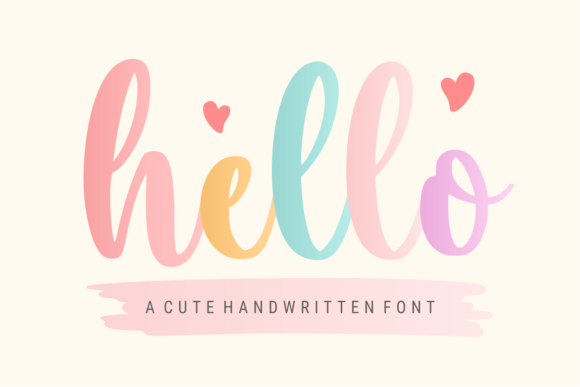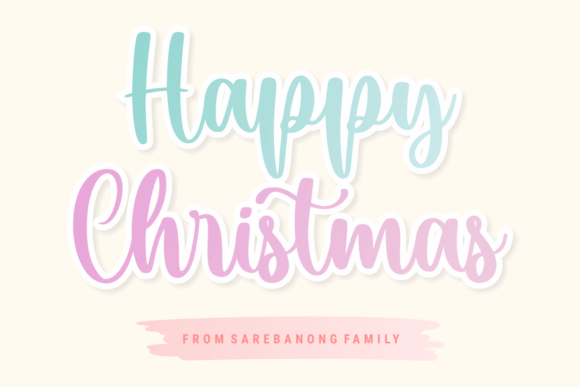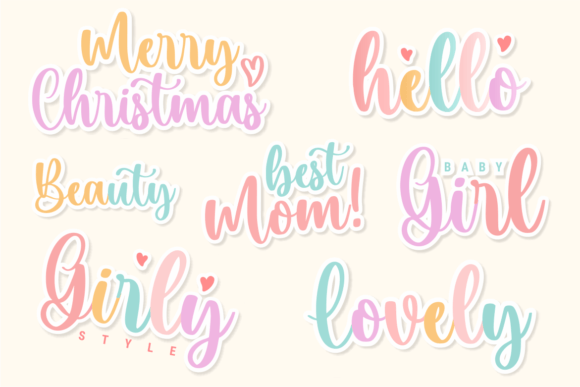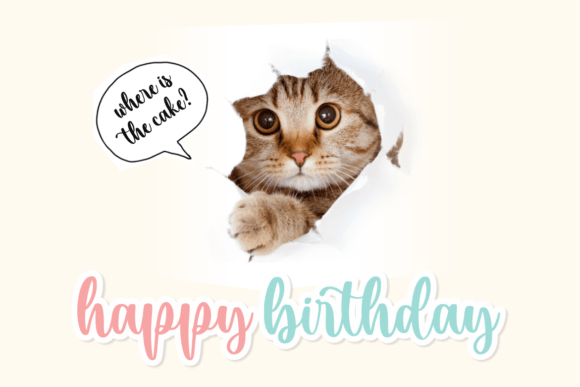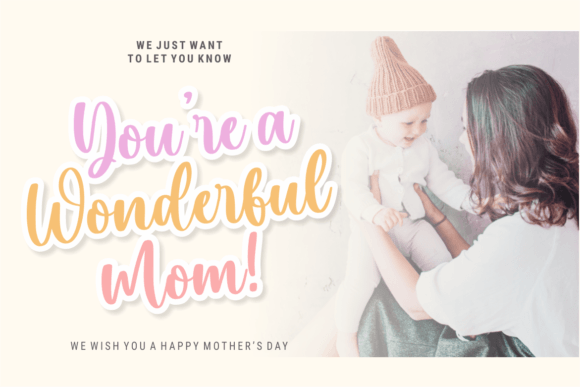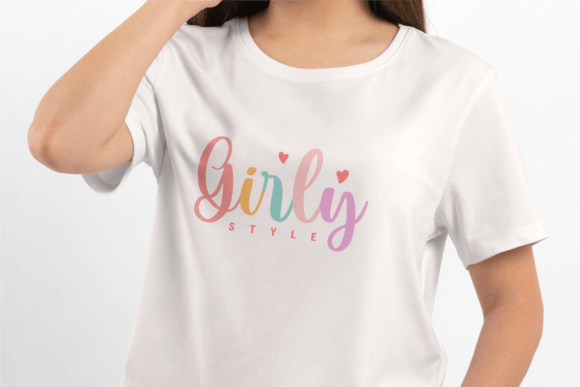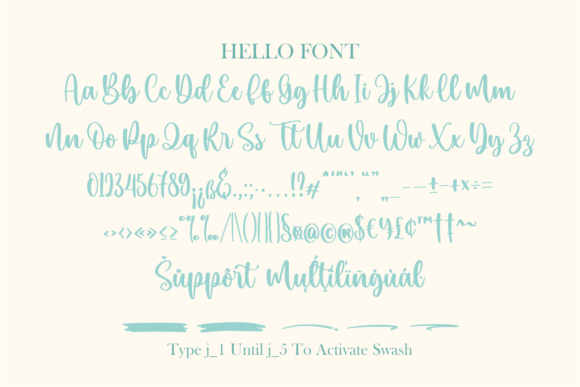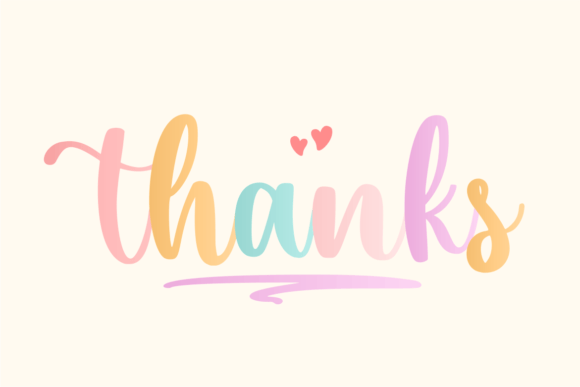
What Is Hello Font?
Hello Font is a delicate handwritten typeface designed to bring a cute and stylish feel to any project. Its smooth, flowing letters look friendly and modern, making it a great choice for designers who want to create warm, inviting visuals.
Each character has a balanced shape, which helps your text feel clean and polished without losing personality.
Hello Font is perfect for many creative applications. For example, you can use it on greeting cards for holidays, birthdays, or special occasions. Its playful style makes messages feel more personal and heartfelt.
In wedding themes, Hello Font adds a touch of romance. You can use it on invitations, menus, and thank-you cards to set a joyful mood.
This font also works beautifully in headlines and quotes. If you design posters or social media graphics, Hello Font helps your words stand out in a friendly way.
Moreover, it looks great on stickers and product labels. Whether you run a small business or create handmade crafts, this font adds a charming, approachable touch.
Why Should You Choose Hello Font?
One of the best reasons to use Hello Font is its versatility. You can pair it with clean sans-serif fonts to balance its decorative style. This combination keeps your designs easy to read while adding personality.
Hello Font is fully PUA encoded. That means you can access all glyphs, swashes, and special characters without needing extra software. As a result, you have more freedom to customize your designs.
Hello Font helps your work feel warm and genuine. The handwritten style builds trust and makes your designs feel personal. This is especially important if you create products for special occasions or gifts.
When you use Hello Font in headlines, your words attract attention without looking too formal. This makes your content more engaging and easier to connect with.
The font’s balanced letters and clean strokes also give your projects a professional touch. Even casual designs feel polished and well-crafted.
Hello Font is more than just a cute script typeface. It is a creative tool that helps you share your ideas with style and warmth. From greeting cards to social media graphics, this font adapts to many uses and makes your work stand out.